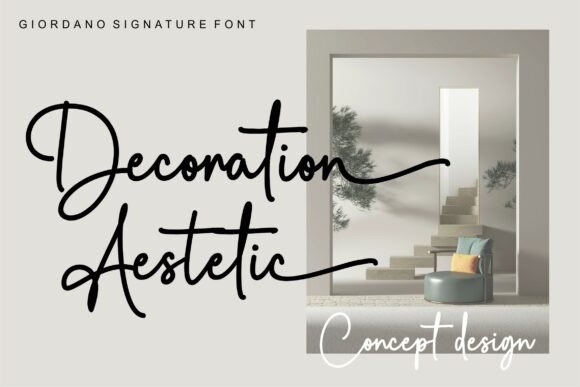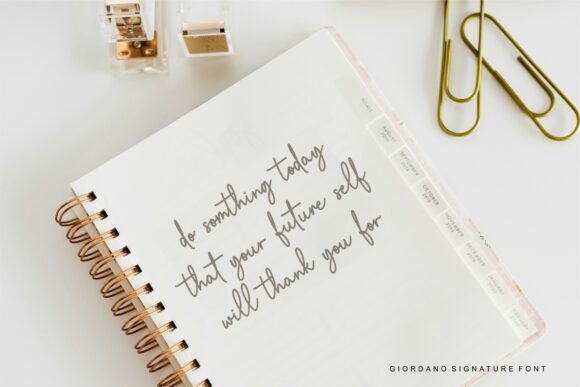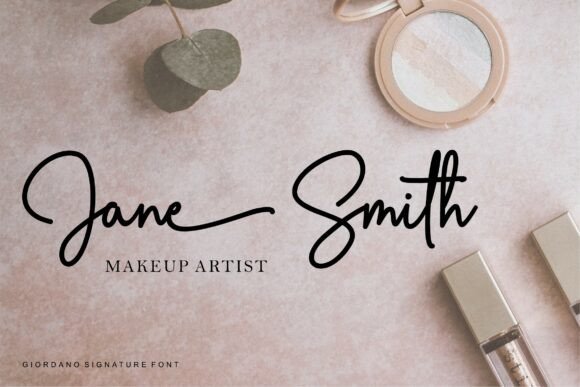
Introduction to Giordano Font
Have you ever found yourself pouring your heart and soul into a creative project, only to realize that the right design element is missing? For designers, the quest for the perfect font can be a daunting task. But what if I told you that there’s a typeface that can bring elegance and sophistication to your work, while also capturing the essence of authentic handwriting? Say hello to the Giordano Font, a modern handwritten script that’s set to revolutionize the way you approach design.
This stunning font combines smooth strokes, stylish curves, and refined details to create a truly unique visual experience. Whether you’re working on a personal branding project, creating a wedding invitation, or designing a fashion logo, the Giordano Font is the perfect design resource to add a touch of personality to your work.
Key Features of Giordano Font
- High-quality design resource ideal for creative projects, offering a unique and elegant touch.
- Includes multiple weights and styles, providing a versatile design solution for various creative projects.
Honest Review: Giordano Font
- What works well: ✨ The Giordano Font is incredibly versatile, suitable for a wide range of creative projects, from logo designs to marketing materials. Its transparent background makes it easy to integrate into any design, and the font’s modern aesthetic ensures it stays on-trend.
- What works well: ✨ The font’s high quality is evident in its crisp, clean lines and well-balanced proportions. This makes it perfect for use in both print and digital designs.
That being said, there are a few limitations to consider. ⚠️ The font’s lack of ligatures and kerning pairs can make it challenging to use in certain situations, such as complex typography or long blocks of text.
Overall, I’m thoroughly impressed with the Giordano Font. Its free download, high quality design, and versatility make it an excellent addition to any designer’s toolkit. While it may not be perfect, its strengths far outweigh its limitations, making it a valuable resource for any creative project.
Tips for Getting the Most Out of Giordano Font
The Giordano Font is a versatile design resource that can be used for a variety of creative projects, including business cards, brochures, and social media graphics. Its transparent background makes it ideal for use on top of images or videos.
Q: Is the Giordano Font suitable for high-quality print projects?
Yes, the Giordano Font is designed to be high-quality and suitable for print projects. Its crisp, clear design ensures that it will look great on paper or other print materials. Designers can use the font for business cards, brochures, posters, and other print materials that require a professional and polished look.